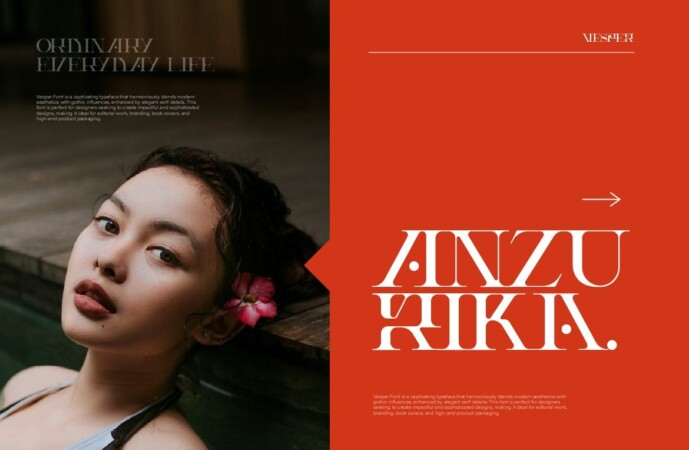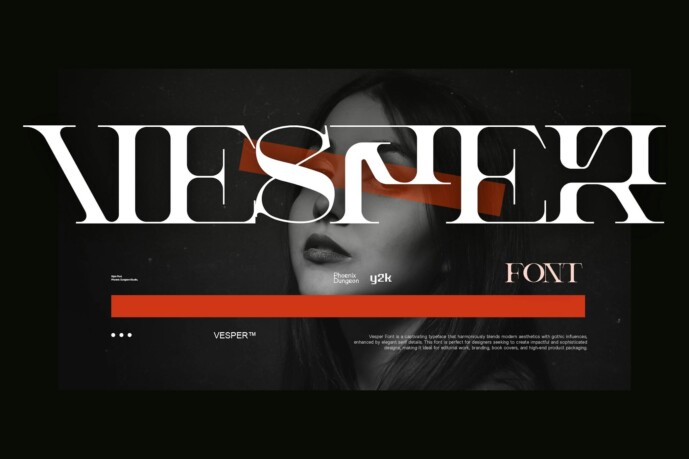
Vesper Font
Designer: Phoenix_Dungeon
Vesper Font is a captivating typeface that seamlessly blends modern aesthetics and gothic influences, all complemented by elegant serif details. This font is perfect for designers looking to create impactful and sophisticated designs, making it ideal for editorial work, branding, book covers and premium product packaging